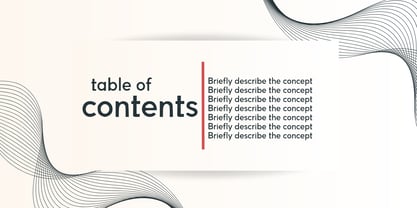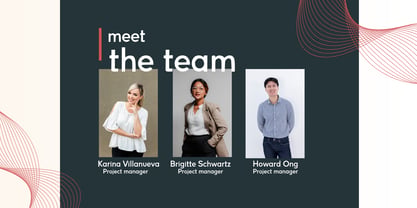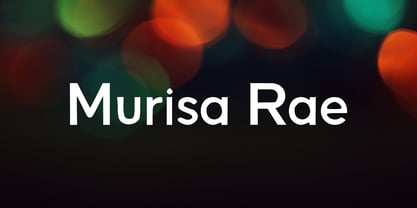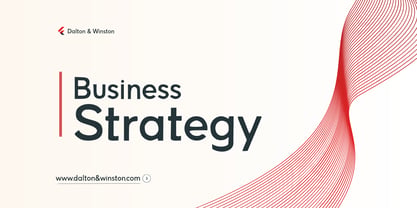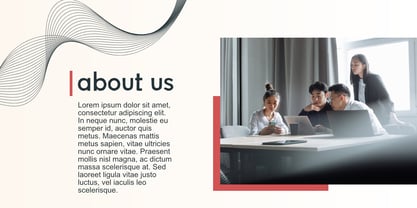
Murisa Rae
by Murisa Studio
The Murisa Rae Font Family was designed by Lili Sadili and published by Murisa Studio. Murisa Rae contains 2 styles and family package options. More about this family
✨ Murisa Rae – A Typeface of Distinction ✨ Murisa Rae is not just a font—it’s a statement of elegance and modernity. Designed with precision and vision, this sans-serif creation blends clean geometry with subtle character, making it versatile for both bold headlines and refined body text. 🌍 Global Reach – With full support for Eastern European languages, Murisa Rae ensures your words resonate across cultures without losing their aesthetic harmony. 💎 Timeless Sophistication – Every curve and line has been meticulously crafted to deliver clarity, balance, and visual impact. Whether on luxury branding, editorial layouts, or digital platforms, Murisa Rae elevates design into an art form. 🚀 Unmatched Presence – This font doesn’t whisper; it commands attention. Perfect for designers, brands, and visionaries who demand originality and want their work to stand apart in a crowded marketplace. Murisa Rae is more than typography—it’s a design investment. When you choose it, you’re choosing exclusivity, refinement, and a font that transforms ordinary text into extraordinary visuals
Designers: Lili Sadili
Foundry: Murisa Studio